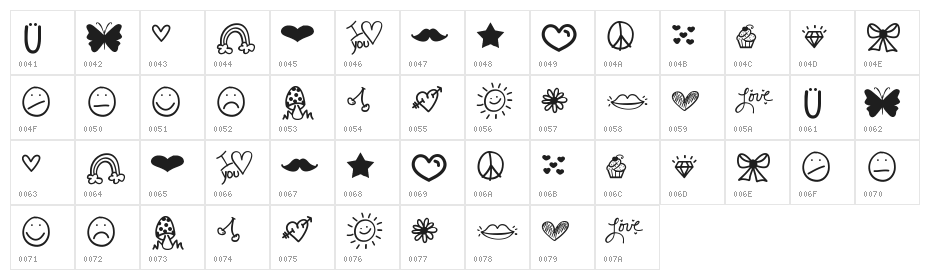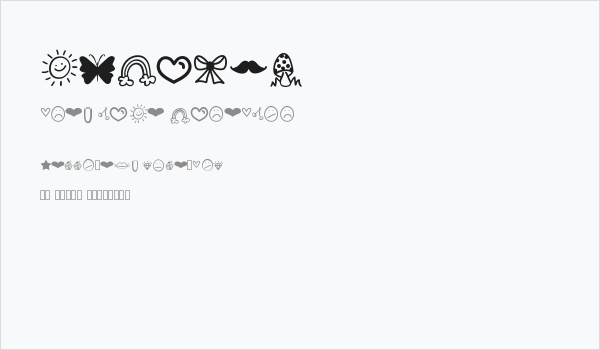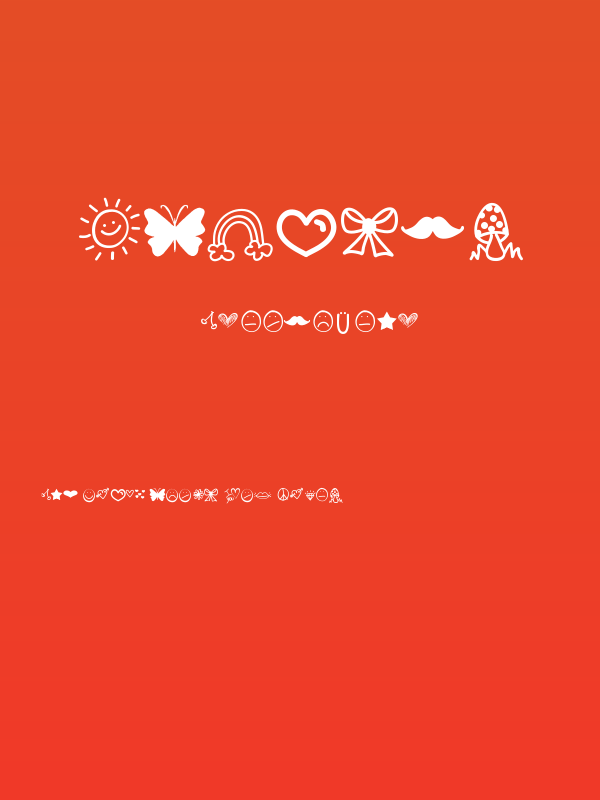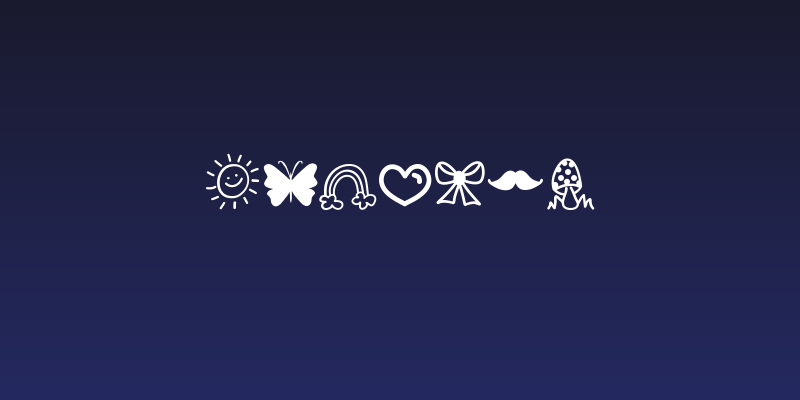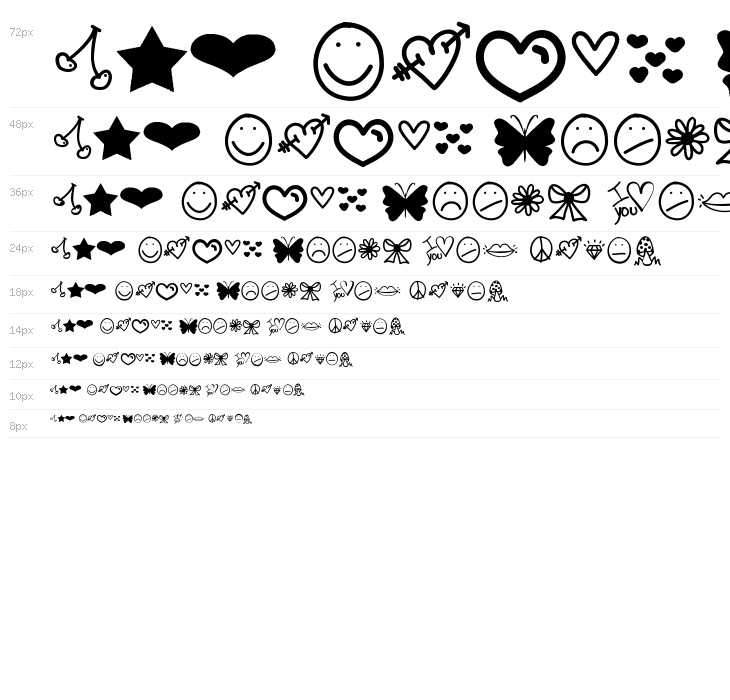
VBdings Font
VBdings Description
This collection features a playful and whimsical assortment of dingbats, including a variety of symbols such as butterflies, hearts, rainbows, stars, peace signs, and more. The designs are bold and expressive, with a hand-drawn aesthetic that adds a personal touch. Each symbol is distinct and easily recognizable, making them suitable for a range of creative projects. The style is consistent throughout, with smooth curves and clean lines that enhance the overall visual appeal. These dingbats are perfect for adding a fun and quirky element to any design.
| Use Case | Logos, Decorative elements, Craft projects |
| Proposed Projects | Ideal for greeting cards, scrapbooking, social media graphics, and playful branding projects. |